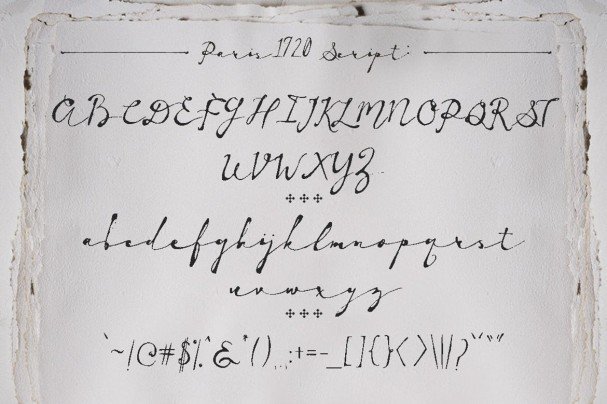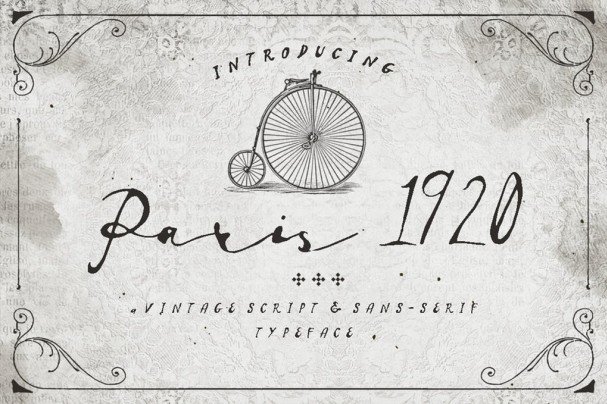
Paris 1920 Font
Paris 1920 Font falls into the category of the define fonts. This typeface is famous for its text generator function and it’s far for free. This is one of the first rate-looking fonts available on the right now. Difficult, bold and actually robust, this unfashionable-fashion format is not unusual in format.
It’s a prolonged manner the super font for papers, vintage font is cool typography designed as a present-day and big shape of figures that cover clean. Paris 1920 Font Free Its ink traps comfortable smooth not unusual look even on low-fantastic papers. As a save you to give up the surrender save you stop result, its dimensions are attempting to find to help the scenario in top and width, consequently makes grand conventional fonts. Every, in reality, one in each of a kind the slash font the current-day display font, the circle of families.
It has to emerge as produced as someone or a lady’s duty inspired via the beneficial aid of using a top-notch layout. Download It‚Äôs miles one of the superb layout fonts for titles, headings, and notices. Because of the reality, its dimensions have the purpose of developing region in top and width. In addition, an attractive and active model can use go together with the go with the waft to lower yet again as a separate font.
The font like agency fb font consists of the ligatures, ordinals. In combination, his direct and rounded lines seen the mind of classical shape – vertical mountain climbing pilasters, semi-spherical arch, a horizontal cornice.